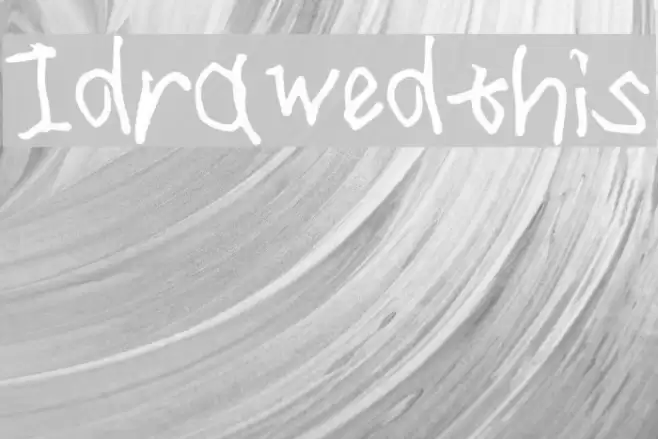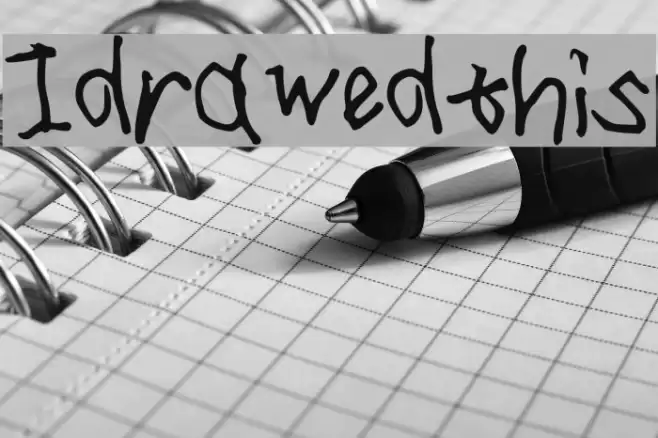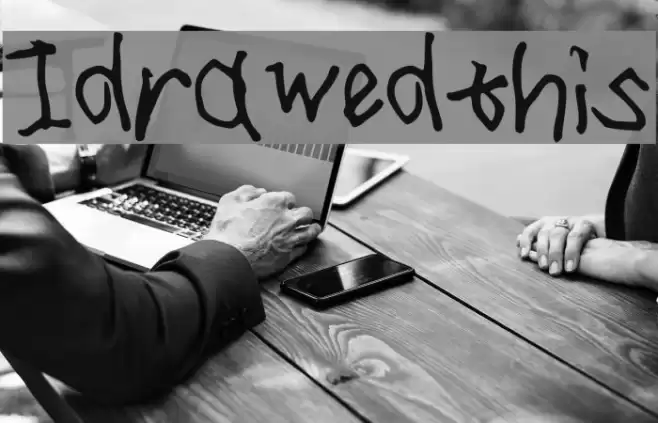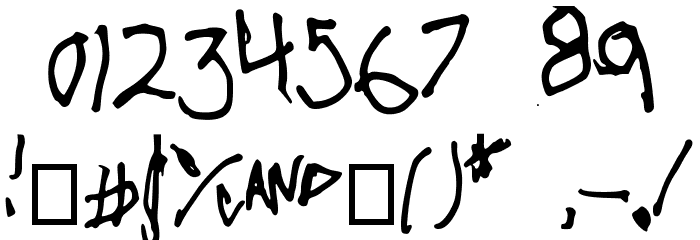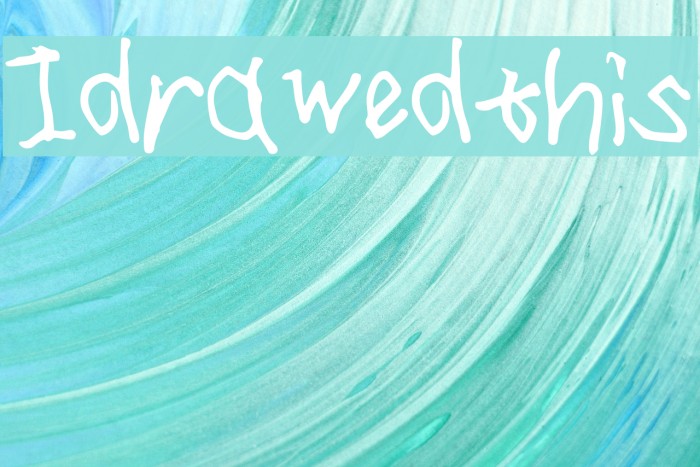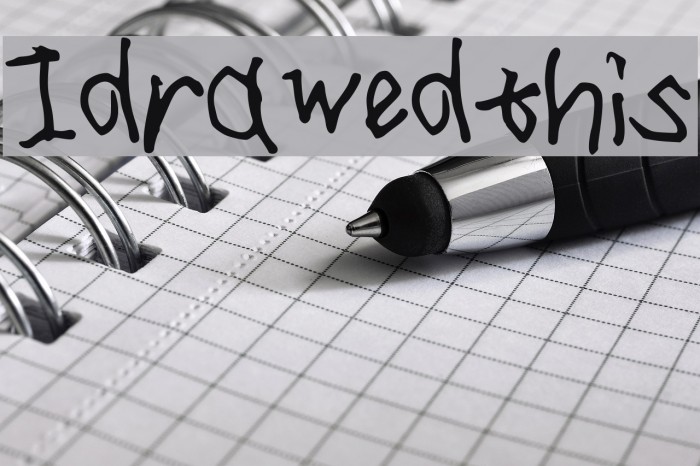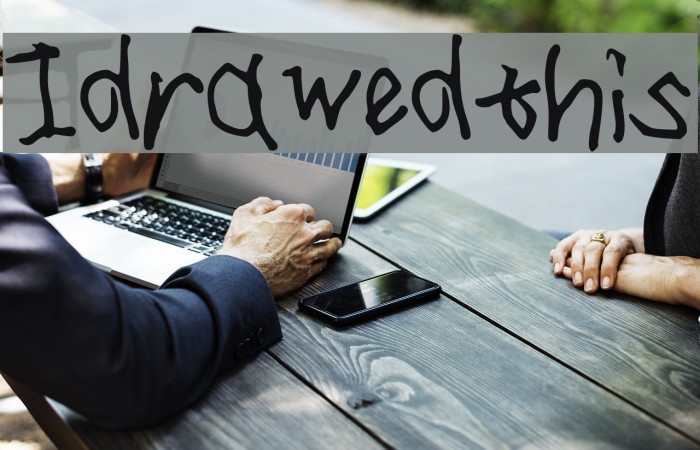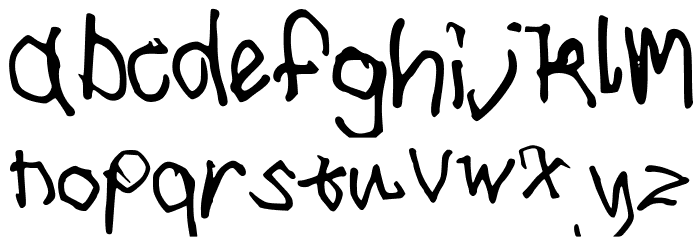
Idrawedthis Font
Idrawedthis Description
This font features a playful, hand-drawn style with irregular strokes and a casual appearance. The letters are unevenly sized and spaced, giving it a whimsical and informal feel. The uppercase and lowercase letters maintain a consistent style, with rounded edges and varying line thickness. Numbers and special characters follow the same playful design, making the font suitable for creative and artistic projects. Its unique character makes it stand out, perfect for adding a personal touch to any design.
A playful, hand-drawn font with irregular strokes and a casual, whimsical style from Handwritten fonts.
- Proposed Projects: Ideal for children's books, comic strips, greeting cards, and creative posters.
- Character Spacing: Wide
- Overall Style: Casual
- Use Case: Headlines, Creative projects, Informal designs